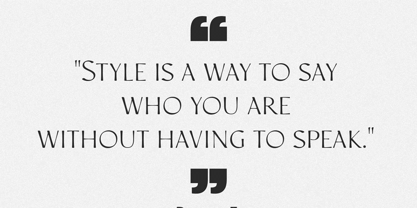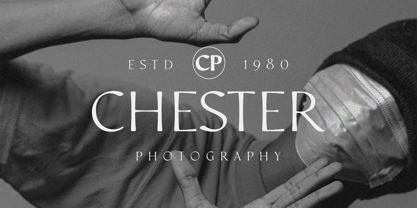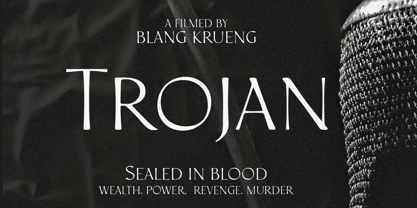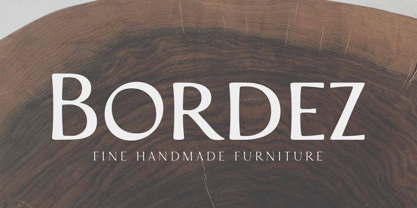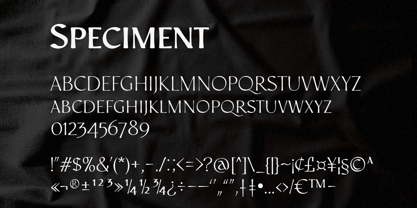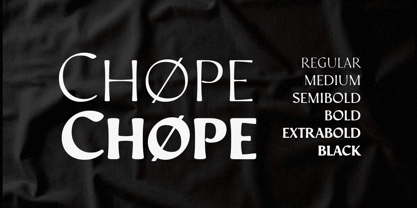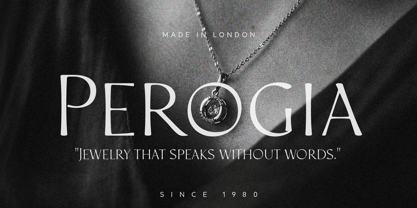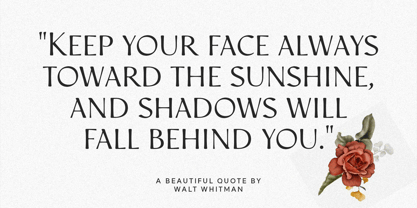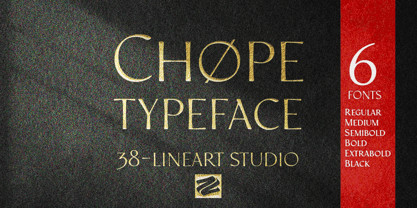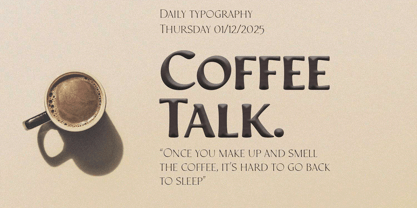
Chope
by 38-lineart
The Chope Font Family was designed by Muhammad Ridha Agusni and published by 38-lineart. Chope contains 6 styles and family package options. More about this family
The Chope Typeface is a thoughtfully crafted design that strikes a balance between elegance and modernity. With its timeless serif style, Chope is a versatile font that offers six weight variations: Regular, Medium, Semibold, Bold, Extrabold, and Black. These options make it adaptable for a wide range of design needs.
Defined by its clean lines and sharp serifs, the font brings a touch of sophistication while introducing subtle, unique details and slightly unconventional proportions that add a contemporary character. Chope aims to complement projects with a refined and polished look, making it a suitable choice for branding, editorial layouts, and creative works in areas like jewelry, fashion, and photography.
Whether it’s used in a logo, a headline, or a brand identity, Chope’s elegant style helps designs stand out without overwhelming, offering a timeless and understated beauty that resonates with various audiences.
38-Lineart Studios is an Indonesian-based type foundry owned and managed by Muhammad Ridha Agusni. What began in 2018 as a hobby, inspired by his background in architecture, has grown into a dedicated pursuit of font creation. Muhammad brings his architectural precision to type design, shaping each letter with care and purpose.Working from his home, Muhammad's design process is grounded in simplicity and focus. In the comfort of his familiar surroundings, he applies his skills to create fonts, appreciating the straightforward pleasures that come with his work.